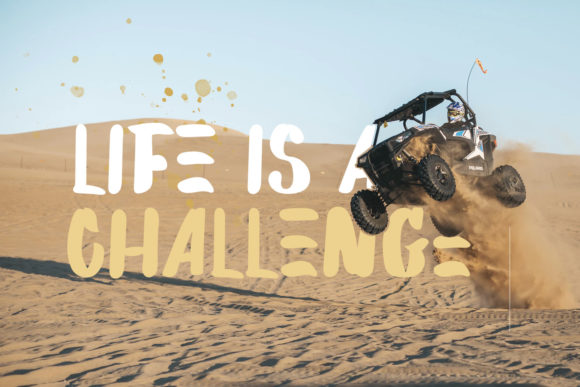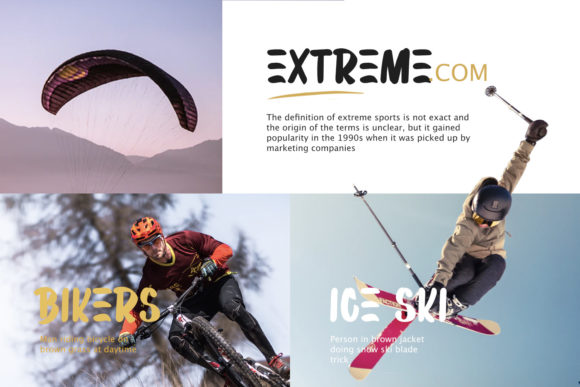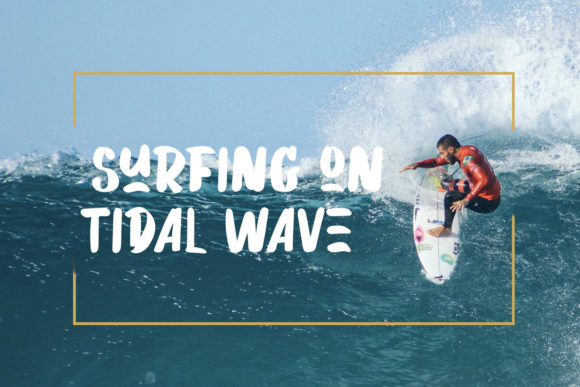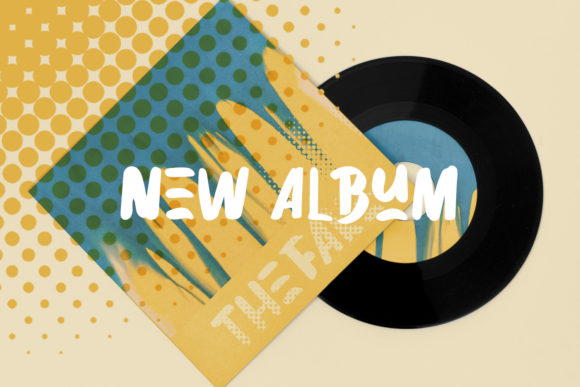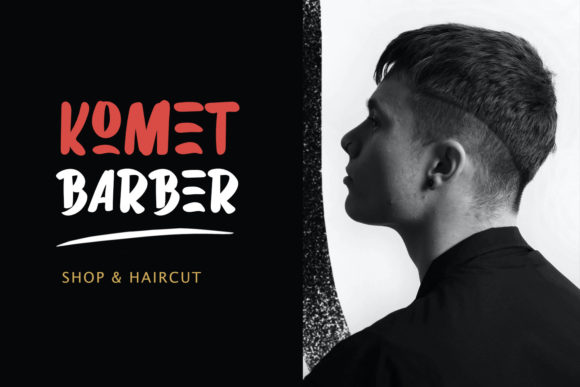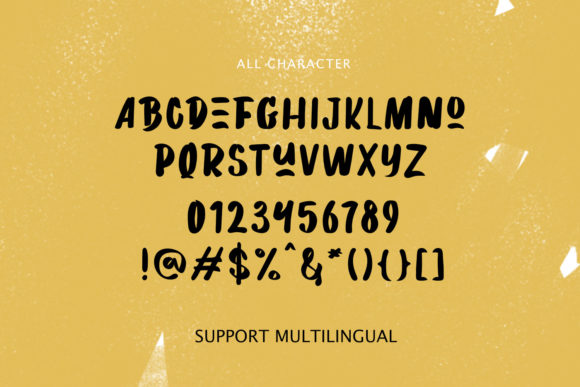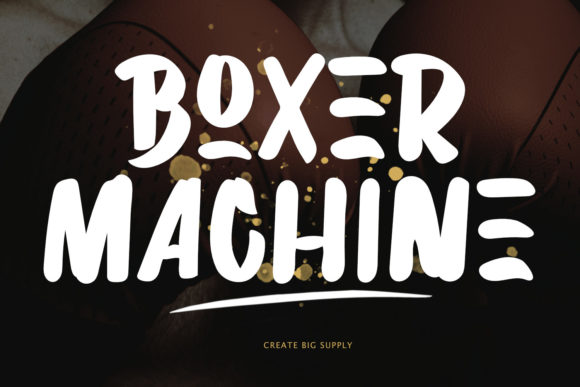
The Ultimate Display Font: Boxer Machine
Have you ever been in the middle of a design project, and suddenly, you’re stuck on finding the perfect font? I recall a recent experience where I was working on a t-shirt design for a client, and I just couldn’t find a font that matched the bold and edgy vibe they were looking for. That’s when I stumbled upon the Boxer Machine font, and it completely transformed my design. In this article, we’ll dive into the world of Boxer Machine, a bold and thick lettered display font that’s perfect for designers, crafters, and creative hobbyists.
A Personal Review of Boxer Machine
As a designer, I’m always on the lookout for fonts that can elevate my designs and make them stand out. Boxer Machine is definitely one of those fonts. Here’s what I love about it:
• ✨ Bold and thick lettering: Boxer Machine is perfect for making a statement with your designs. The font is bold, thick, and attention-grabbing, making it ideal for display purposes.
• ✅ Highly versatile: This font can be used for a wide range of designs, from t-shirts and sportswear to logos, advertisements, and clothing.
• 💯 Easy to read: Despite its boldness, Boxer Machine is surprisingly easy to read, even in smaller sizes.
However, like any font, Boxer Machine isn’t perfect. Here are a few quirks to keep in mind:
• 🤔 Limited use in body text: Due to its boldness, Boxer Machine may not be the best choice for body text. It’s best used for headings, titles, or display purposes.
• ⚠️ May not be suitable for small sizes: While Boxer Machine is easy to read, it may not be the best choice for very small sizes, as it can become distorted or pixelated.
One of the best things about Boxer Machine is its support for OpenType features and glyphs. These features allow you to add more creativity and variety to your designs. Here are a few examples:
• Stylistic alternates: Boxer Machine offers stylistic alternates that allow you to switch between different font styles, such as bold, italic, and oblique.
• Glyphs: The font includes a range of glyphs that you can use to add more visual interest to your designs.
The Backstory of Boxer Machine
The story behind Boxer Machine is one of creativity and innovation. The font was designed by a team of typographers who wanted to create a bold and edgy font that would stand out in the design world. Inspired by the world of boxing, they created a font that’s strong, confident, and attention-grabbing.
What is Boxer Machine? Boxer Machine is a bold and thick lettered display font that’s perfect for designers, crafters, and creative hobbyists.
What can I use Boxer Machine for? You can use Boxer Machine for a wide range of designs, including t-shirts, sportswear, logos, advertisements, clothing, and more.
Is Boxer Machine easy to read? Yes, Boxer Machine is surprisingly easy to read, even in smaller sizes.
Can I use Boxer Machine for body text? No, Boxer Machine is best used for headings, titles, or display purposes. It’s not recommended for body text due to its boldness.